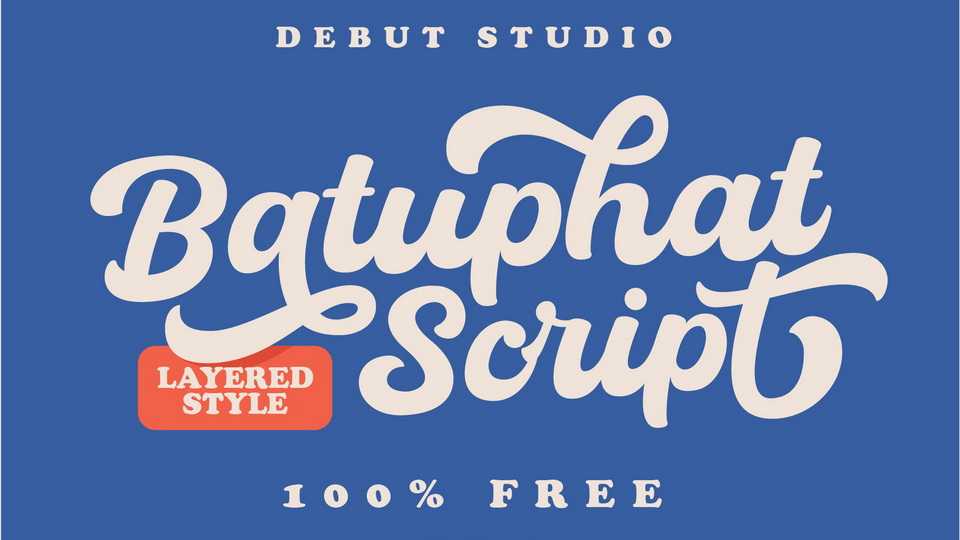
Download Batuphat Script font, a bold hand lettered typeface with a vintage appearance. Batuphat Script font is suitable for young, passionate design, such as logo design, t-shirts, branding, and various other design purposes.
Designer: Debut Studio